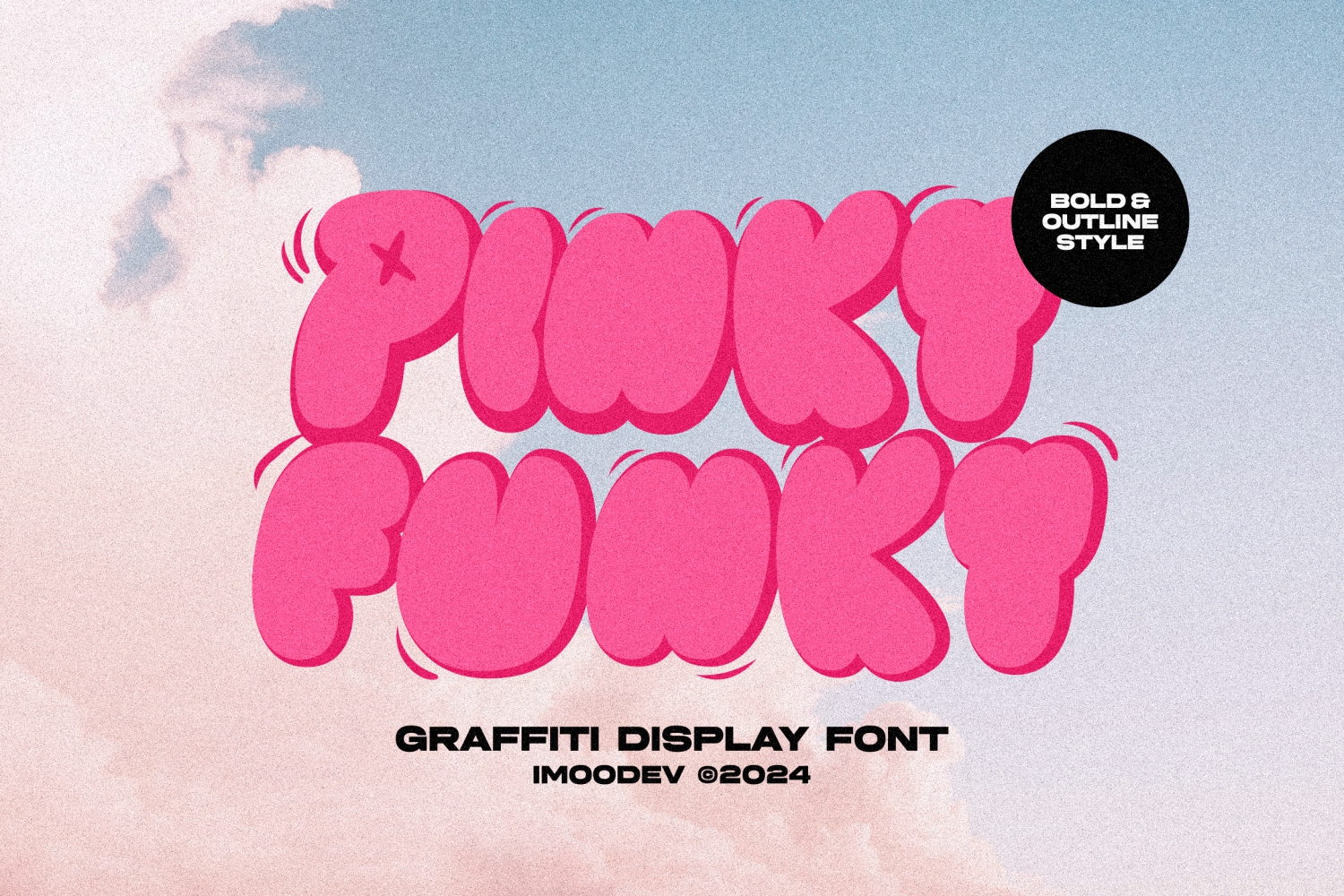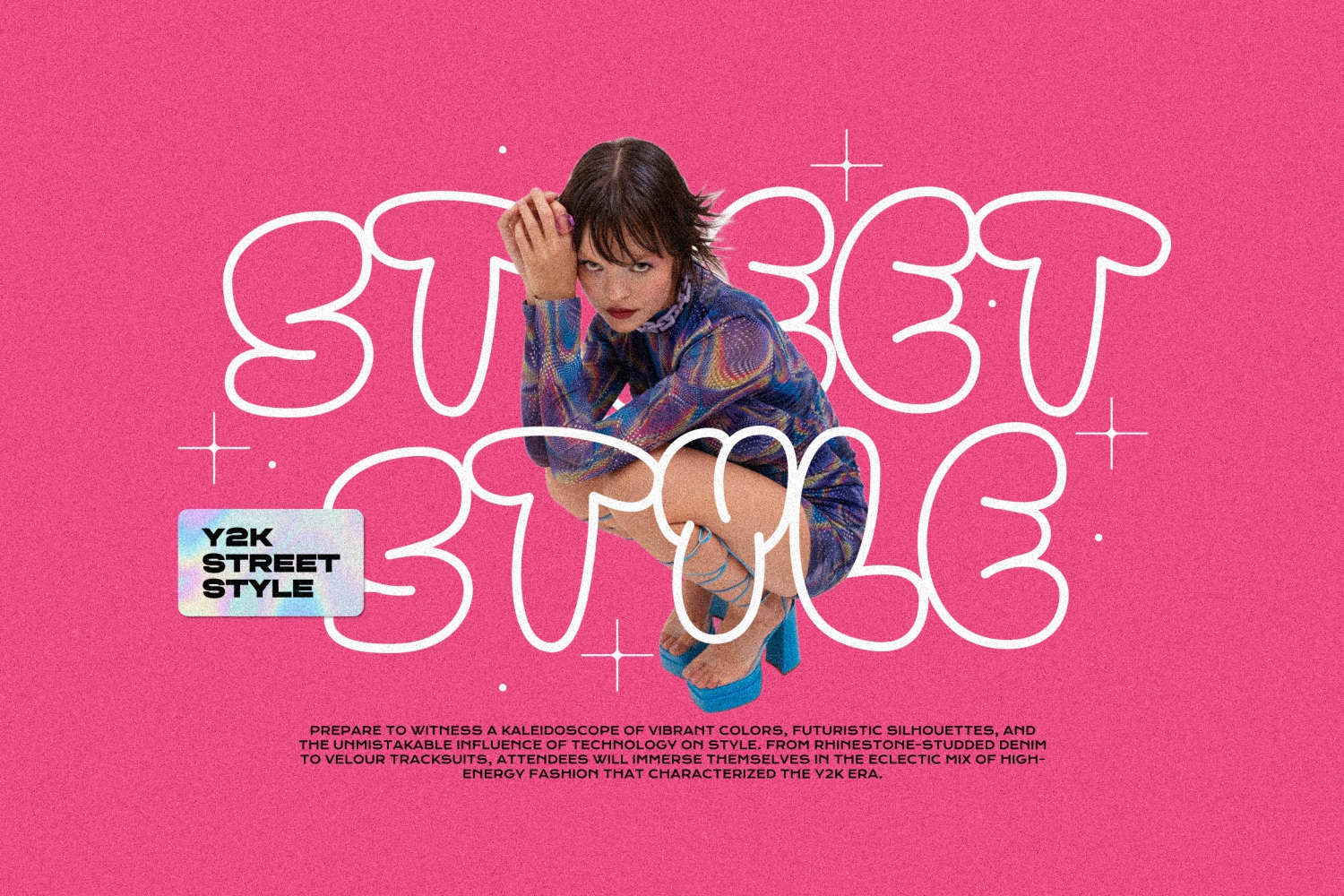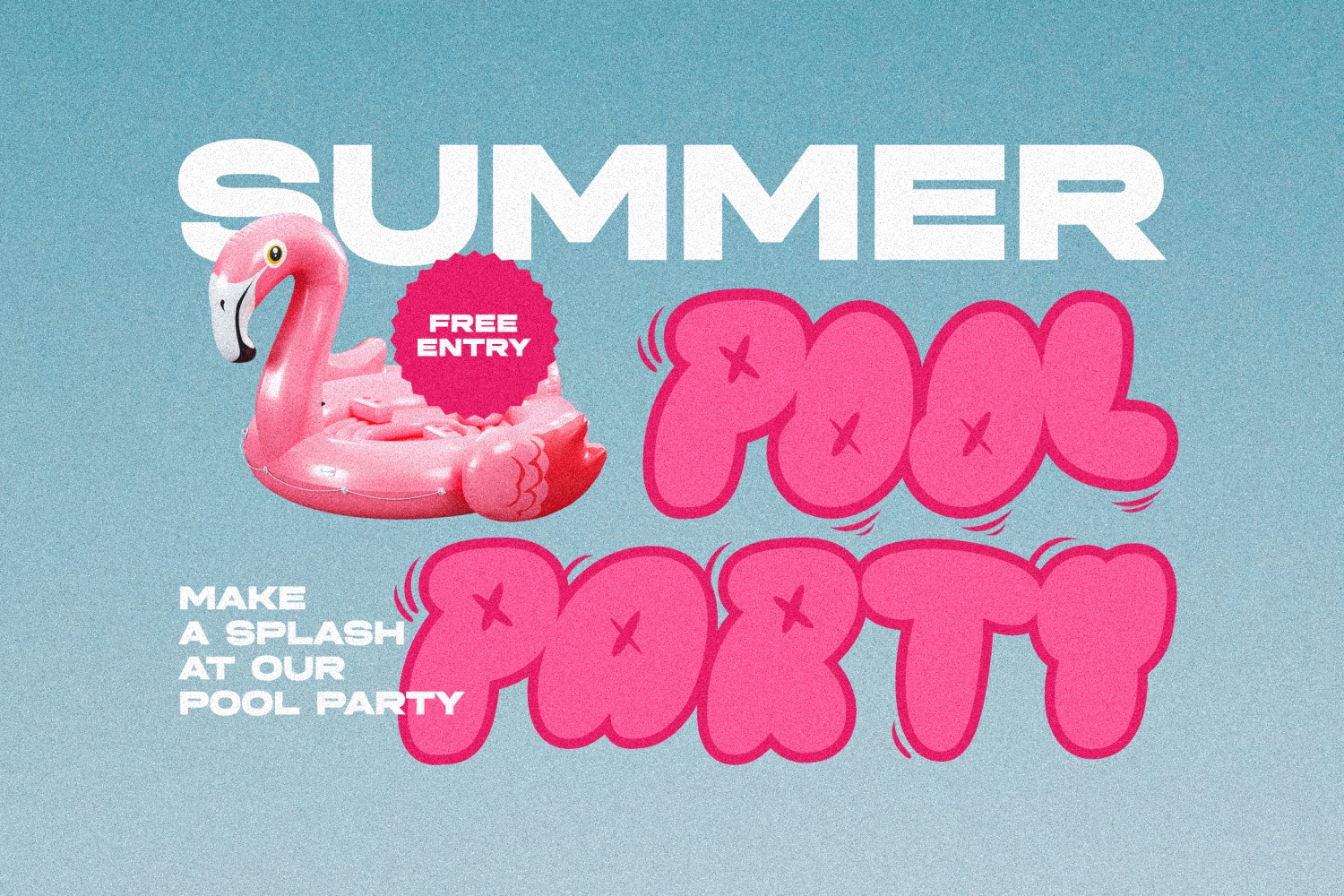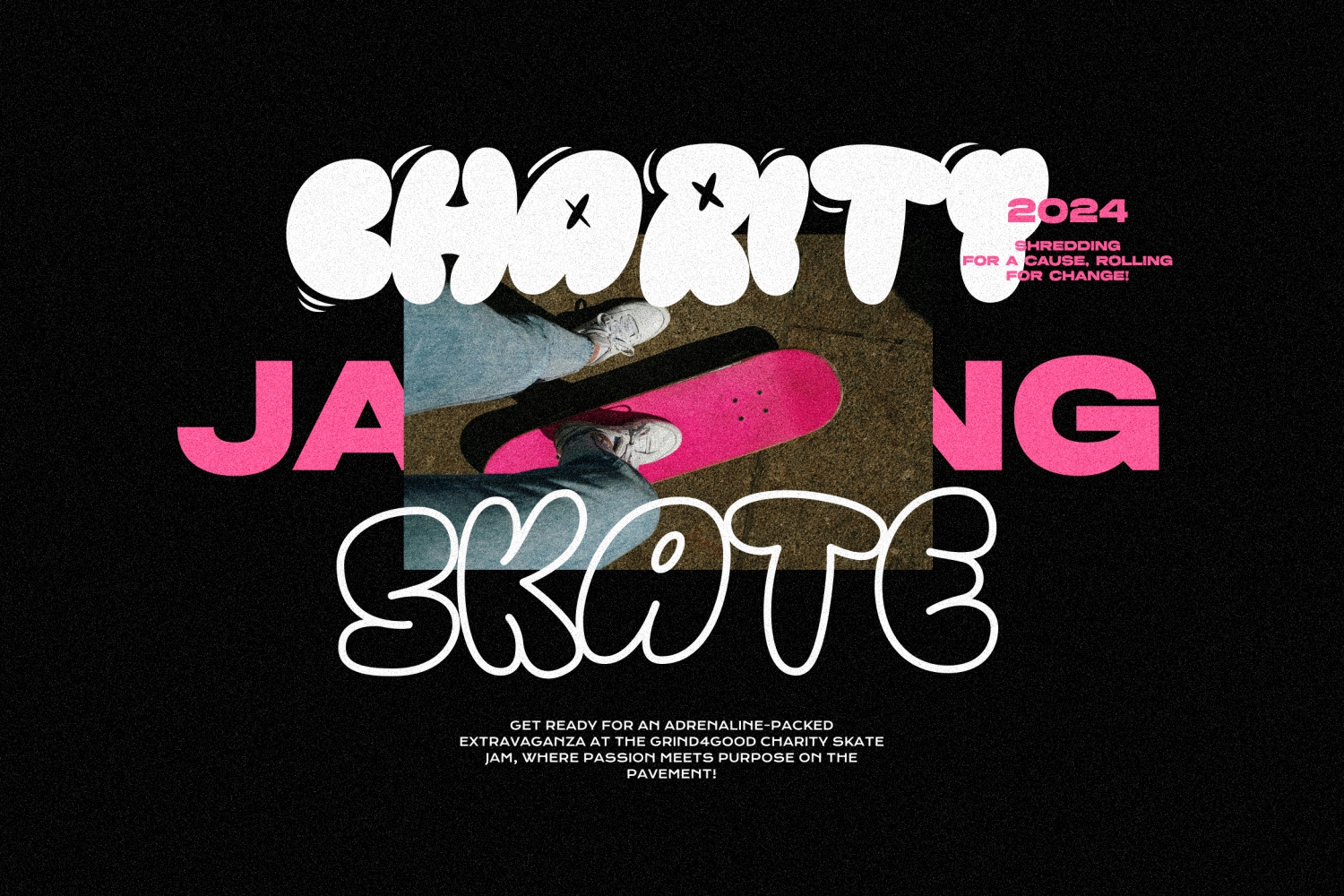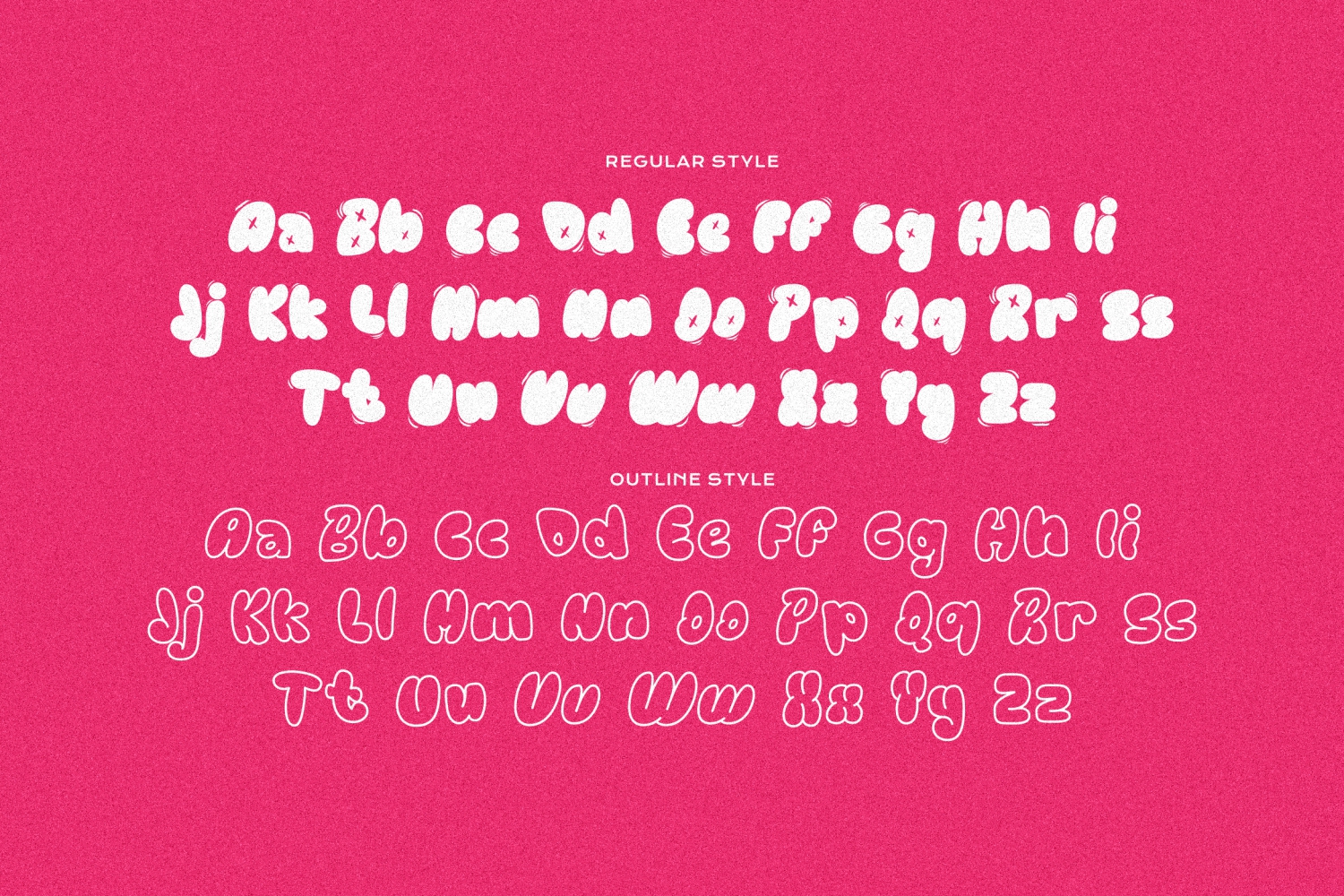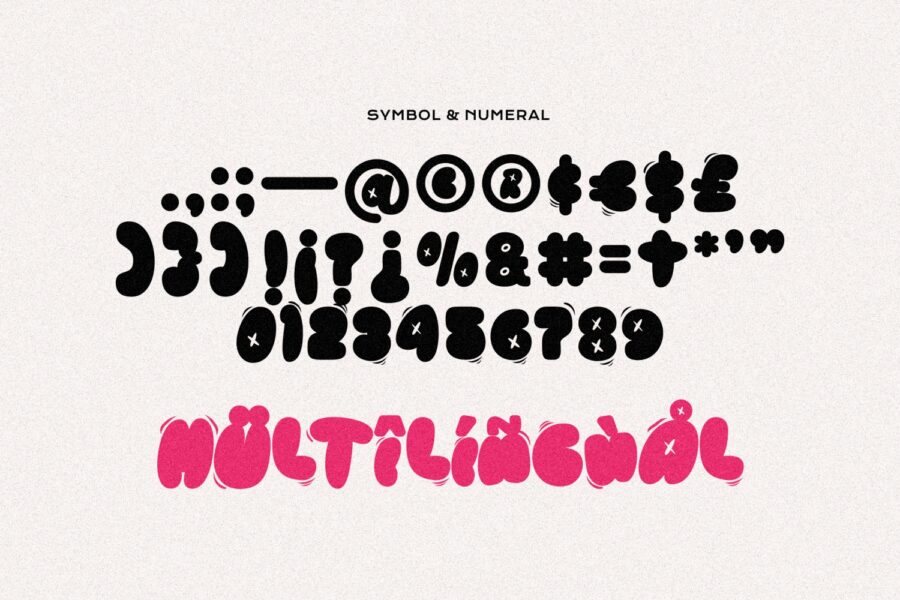
Pinky Funky is a bold graffiti display font that bursts with playful energy and street-style charm. With its chunky bubble lettering and quirky strokes, this font instantly captures attention and brings a fun, urban vibe to any design. Perfect for adding a touch of personality, it blends the nostalgic feel of Y2K aesthetics with a modern graffiti edge, making it ideal for bold headlines, posters, and event branding.
Available in both bold and outline styles, Pinky Funky offers versatility for different creative expressions. Whether you’re designing party flyers, streetwear branding, album covers, or social media graphics, this font delivers a dynamic punch. Complete with uppercase, lowercase, numerals, symbols, and multilingual support, Pinky Funky makes your designs stand out with a vibrant and youthful street culture spirit.